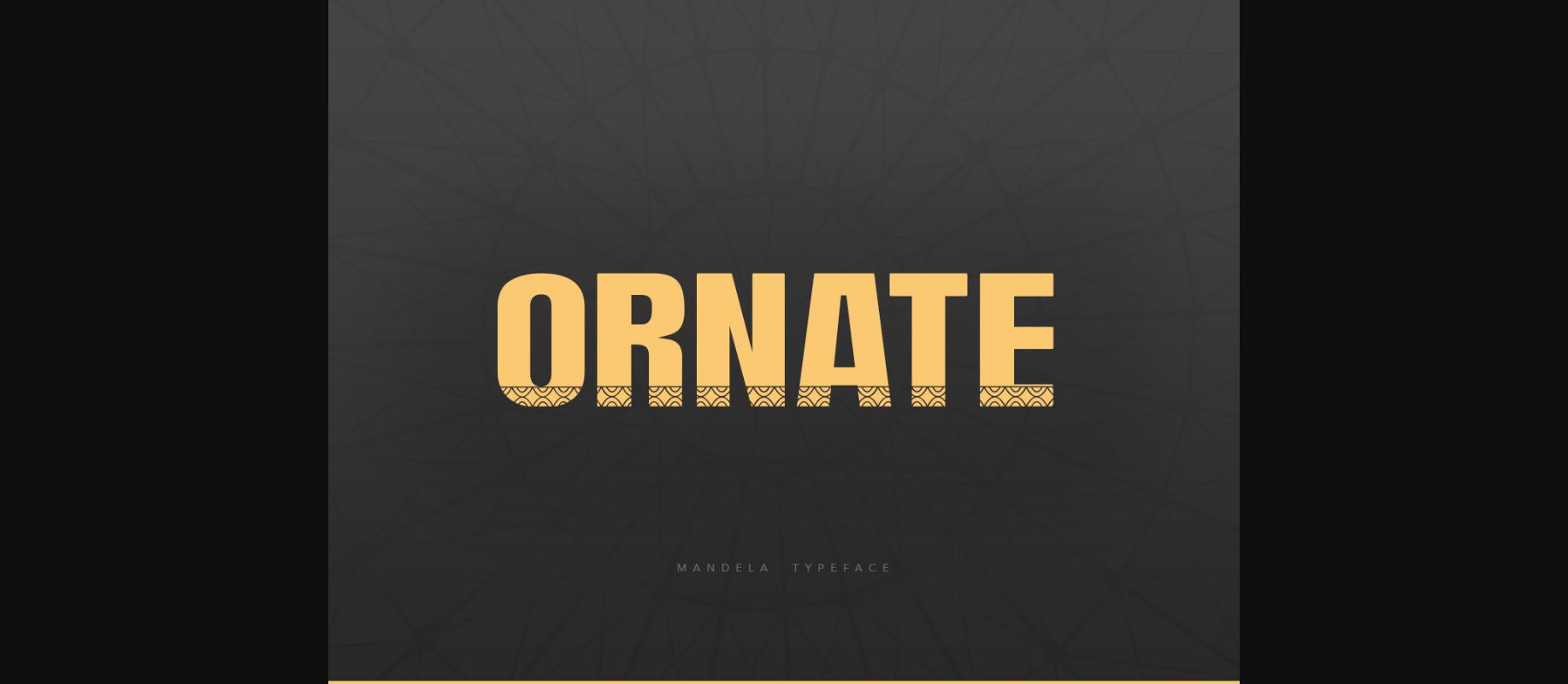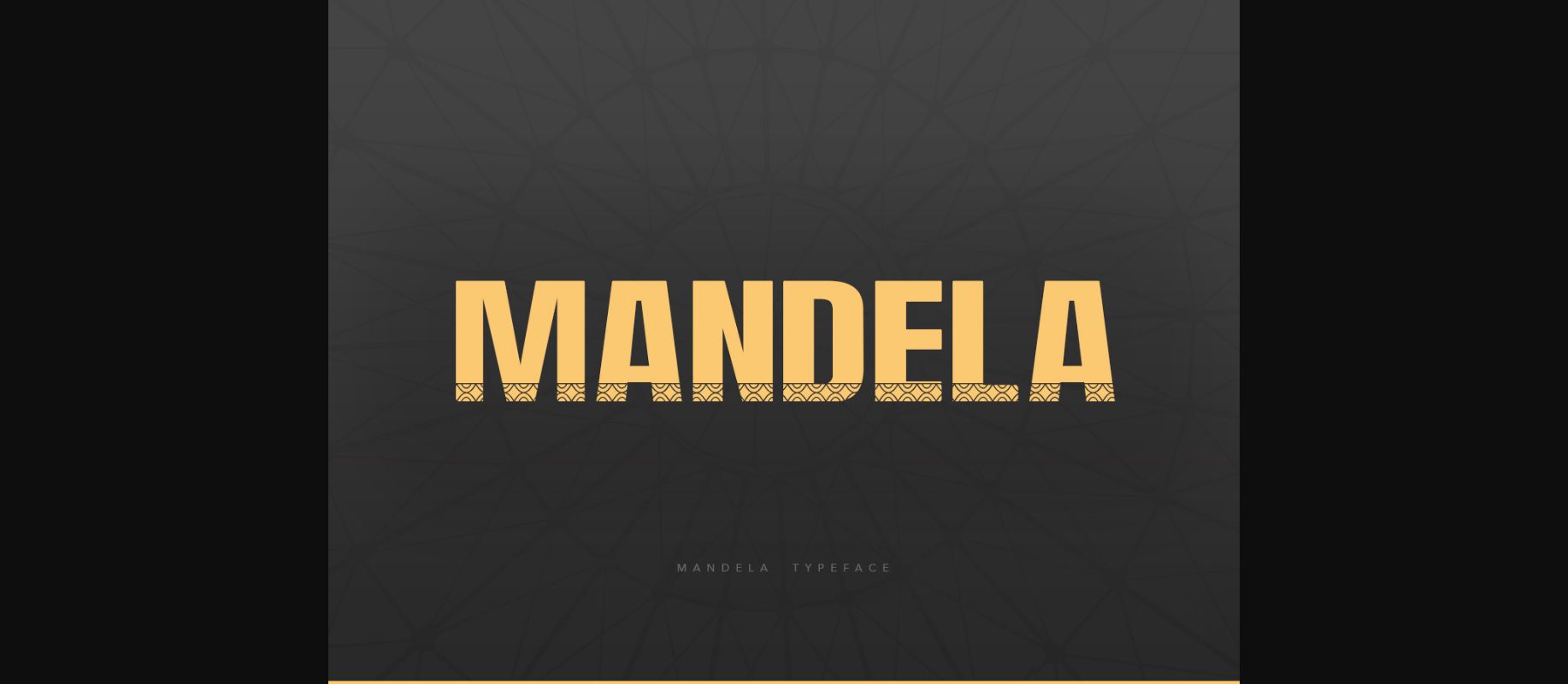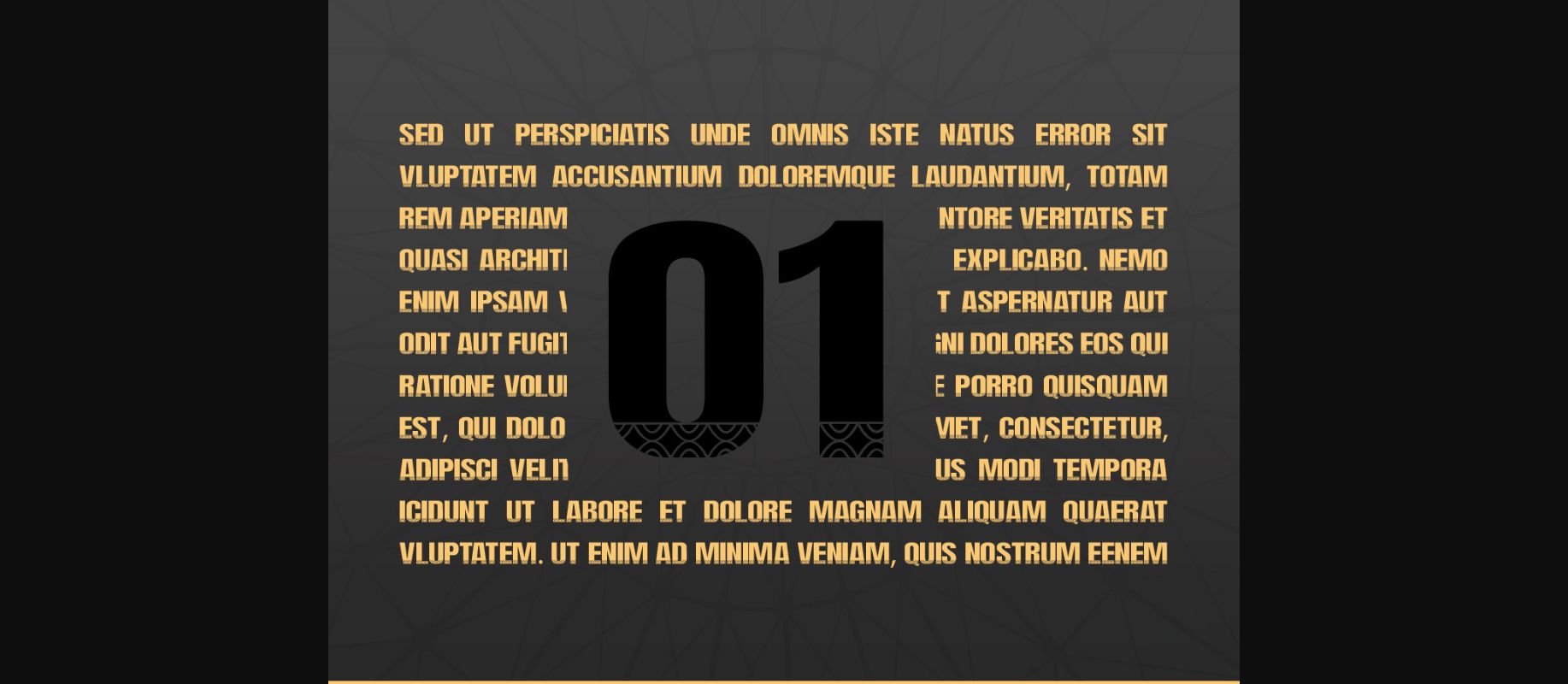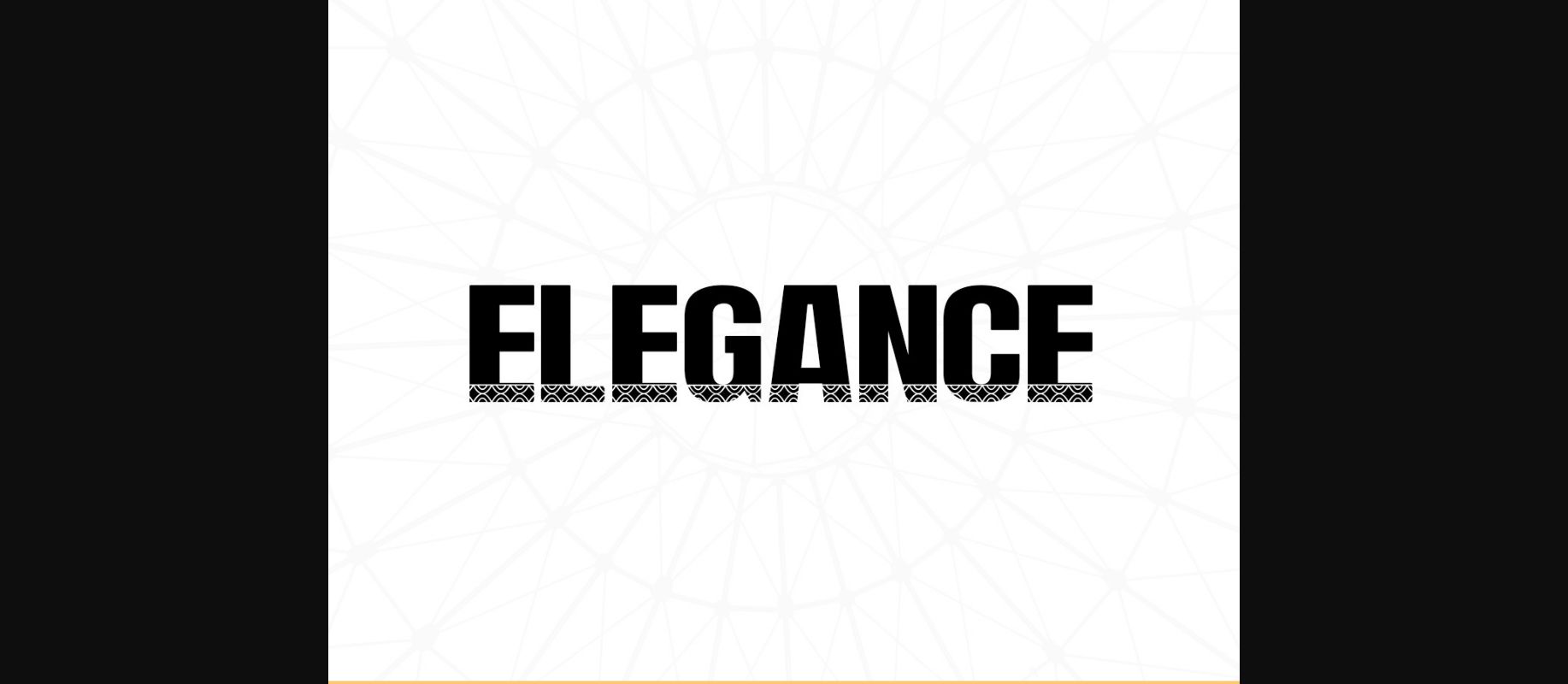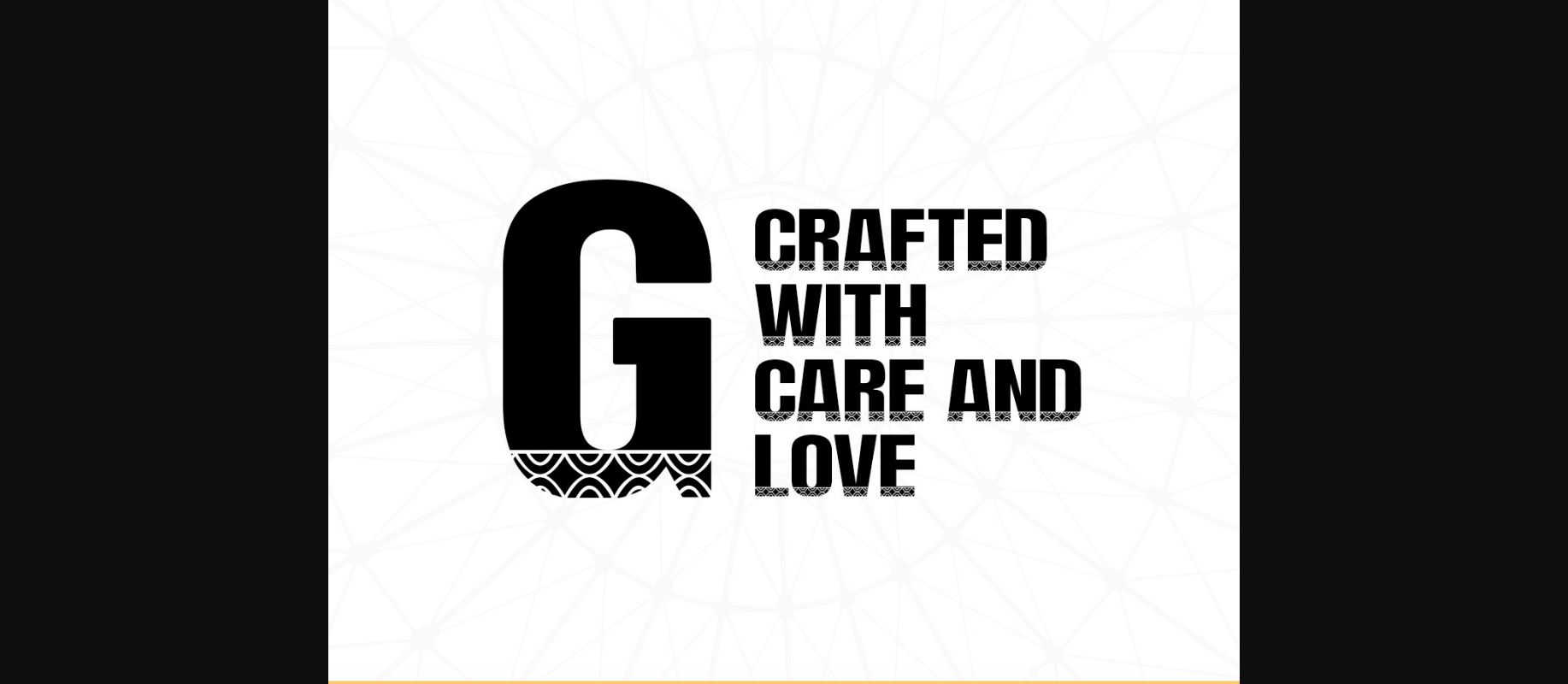
Ornate Font
About Ornate Font
Ornate is a bold and thick lettered decorative font. No matter the topic, this font will be an incredibly asset to your fonts’ library, as it has the potential to elevate any creation.